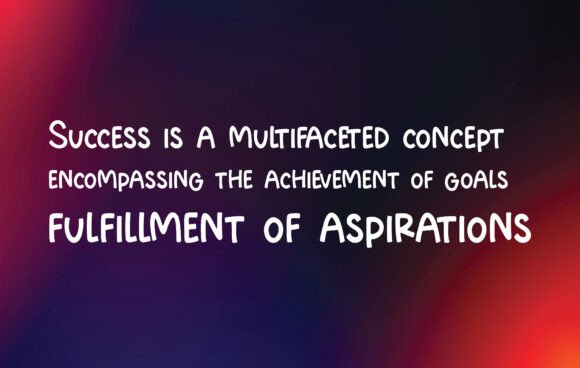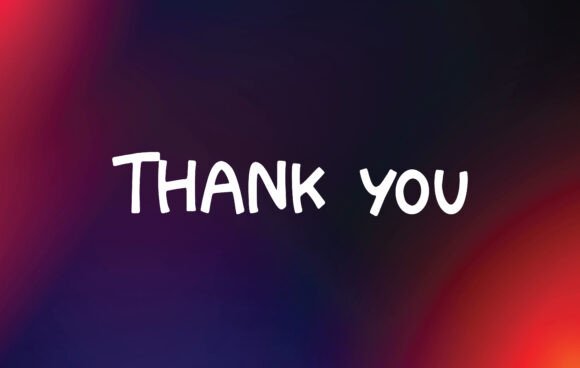
The Perfect Font to Bring Your Creativity to Life
Have you ever stared at a blank page, feeling the excitement and pressure of bringing your creative idea to life? That’s a feeling we’ve all been there, and it’s exactly where the Kamden Font comes in – to help spark your imagination and give your ideas the perfect visual representation.
Kamden Font is a stunning, handwritten font designed to add a personal touch to your creative projects. Whether you’re working on eye-catching logos, memorable branding, or inspirational quotes, this beautiful font has the potential to elevate your work to new heights.
For designers, Kamden Font is a valuable addition to their toolkit, providing a unique and creative way to express themselves and connect with their audience. With its versatility and charm, it’s no wonder that Kamden Font is fast becoming the go-to choice for creatives looking to make a lasting impression.
Kamden Font Key Features
- Unique Characteristics: Kamden Font boasts a modern, clean design with a unique blend of geometric and script elements, giving it a distinctive and stylish appearance.
- Font Family: The Kamden Font family consists of 12 styles, including Light, Regular, Bold, and Italic, providing users with a range of options to suit different design needs.
- Legibility: The font’s clean design and open shapes ensure excellent legibility, even at small font sizes, making it ideal for body text, headings, and titles.
Kamden Font Review
Kamden Font is a great addition to any designer’s toolkit. It’s ✨ versatile, with a mix of modern and classic elements that make it perfect for a wide range of projects. The font’s ✨ readability is also a major plus, making it easy to use in both body text and headings.
- ✨ Elegant and sophisticated feel
- ✨ Wide range of weights and styles to choose from
- ✨ High-quality rendering, even at small font sizes
- ✨ Supports a variety of languages
However, there are a few areas where Kamden Font falls short. The font’s ✠ limited character set can be a problem for designers who need to work with non-standard characters. Additionally, the font’s ✠ lack of support for some advanced typography features can make it less suitable for complex designs.
- ⚠️ Limited character set may not be suitable for all projects
- ⚠️ No support for some advanced typography features
Overall, Kamden Font is a solid choice for designers who want a high-quality, versatile font that’s easy to use. While it may not be perfect, its strengths outweigh its limitations, making it a great addition to any design toolkit.
Getting the Most Out of Kamden Font
To get the most out of Kamden Font, use it for titles and headings to add a touch of elegance to your design. You can also pair it with other fonts to create a unique and visually appealing combination.
Kamden Font is commonly used for:
- Brand logos and marketing materials
- Book covers and literary publications
- Special event invitations and announcements
Kamden Font is a highly customizable font. It supports advanced features like ligatures, fractions, and alternates. You can also use font editors like FontLab or FontForge to modify the font’s design and create custom variations.